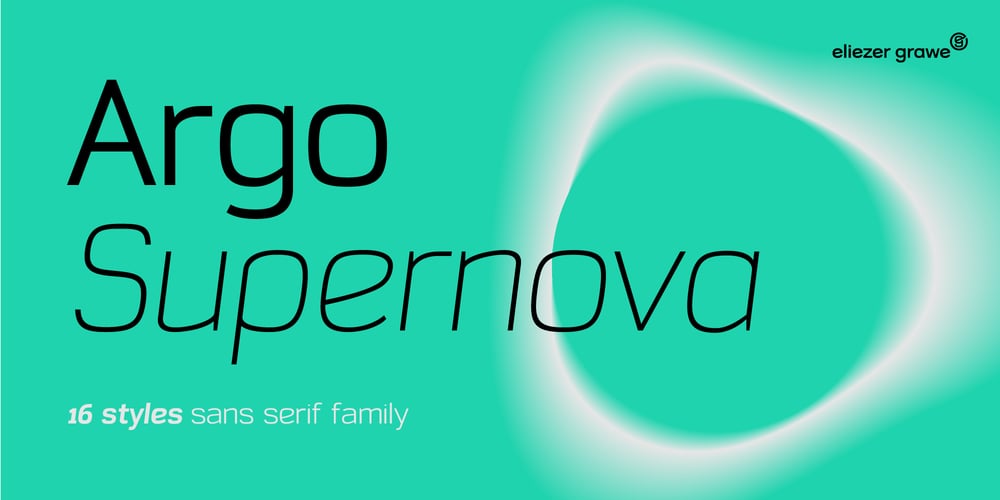
Argo Supernova Font Family was designed by Eliezer Grawe and published by Eliezer Grawe. Argo Supernova contains 16 styles and family package options. Argo Supernova is a sans serif font, inspired by science fiction titles. Delicate on the thinest weights, strong on the thickest ones, it is perfect for modern branding and logo design, editorial design, web design, packaging and various other projects.Argo Supernova has a geometric and open structure, with shapes that create a solid texture on the page. Its large x-height produces good reading in long texts and its peculiarities, such as curved bars and endings, generate a strong presence in titles.The Argo Supernova family consists of 8 weights with matching italics, with Extended Latin character set. The italics makes use of more curves and smoothness, creating an interesting variation in design.• 16 styles: 8 weights + 8 italics;• 602 glyphs in each weight;• Special SS02 feature: “bend” alternates for majority of caps characters with curved details;• OpenType features: Access All Alternates, Stylistic Alternates, Standard Ligatures, Discretionary Ligatures, Numerators, Denominators, Fractions, Superior and Inferior Numbers, Kerning, Localized Forms, Lining Figures, Oldstyle Figures, Proportional Figures, Tabular Figures, Slashed Zero, Stylistic Set 1 to 6.• Supporting 219 latin based languages, which are spoken in different 212 countries.